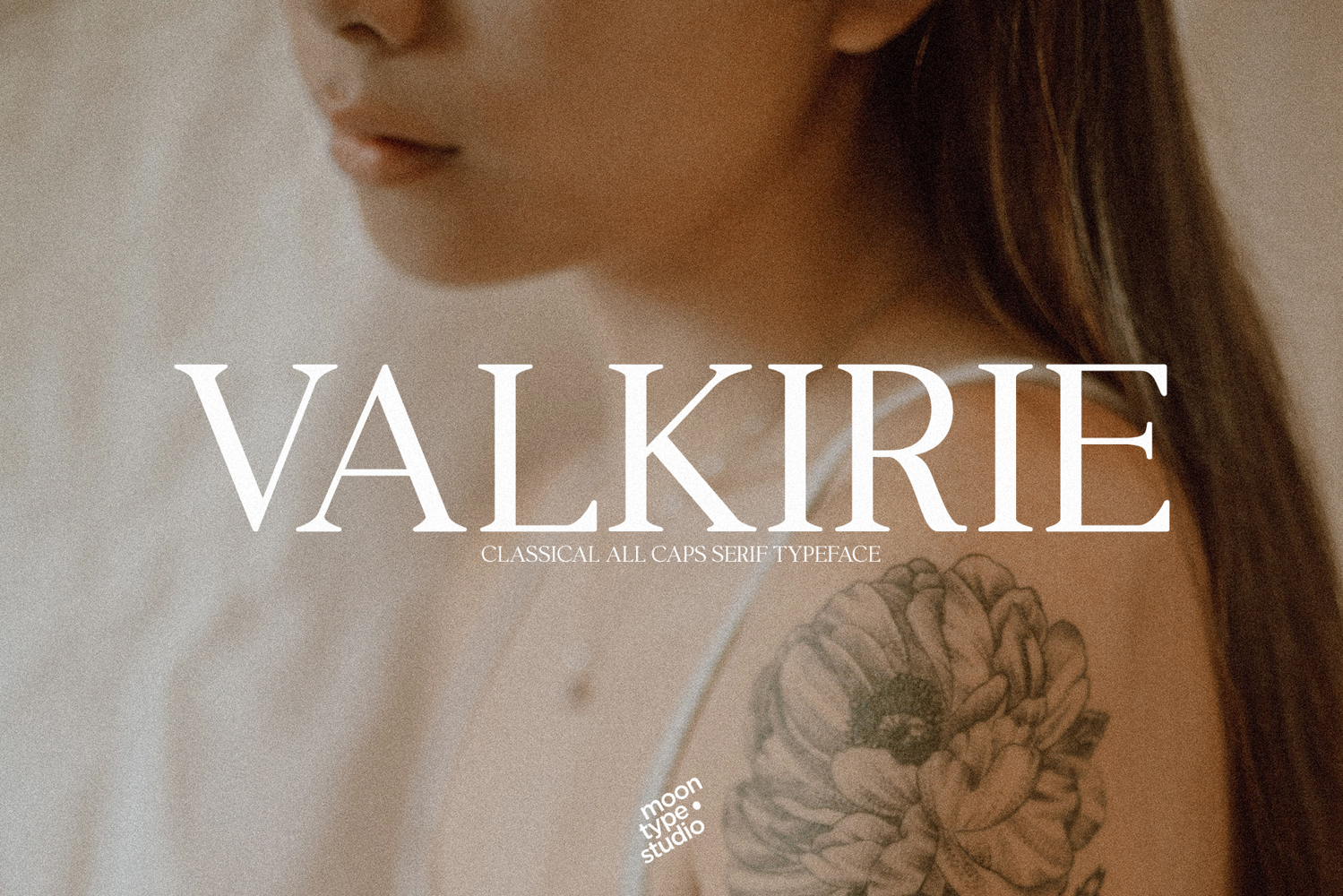
Valkirie - Classical Serif
Valkirie
Valkirie is a striking, classical serif typeface that commands attention with its bold, yet timeless elegance. Inspired by the refined typography of historical print, Valkirie blends traditional letterforms with a sense of modern strength, making it perfect for projects that require both authority and sophistication. The sharp serifs, high contrast between thick and thin strokes, and graceful curves give Valkirie an air of aristocratic refinement, while still remaining versatile and accessible. Ideal for luxury brands, prestigious publications, or any design in need of a distinguished, classic feel, Valkirie adds a touch of old-world charm with a contemporary edge. Whether in editorial spreads, branding, or invitations, it brings a sense of gravitas and timeless beauty to every project.